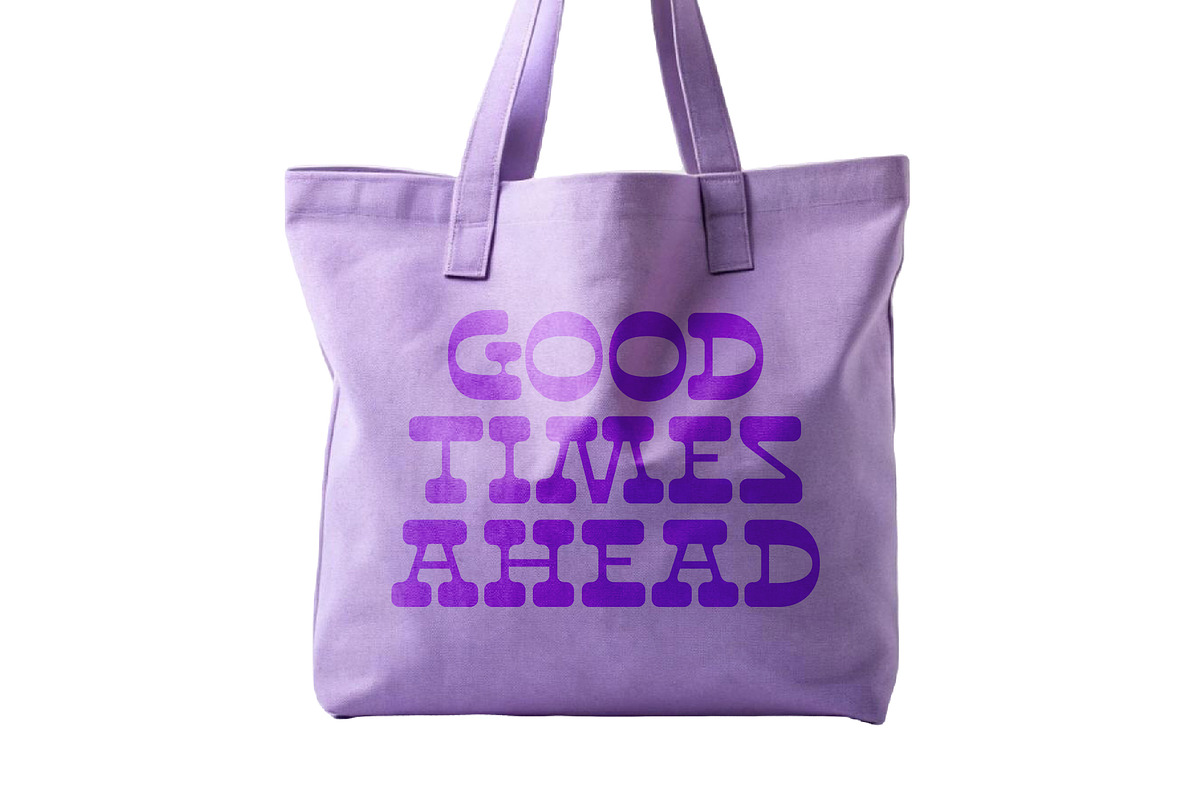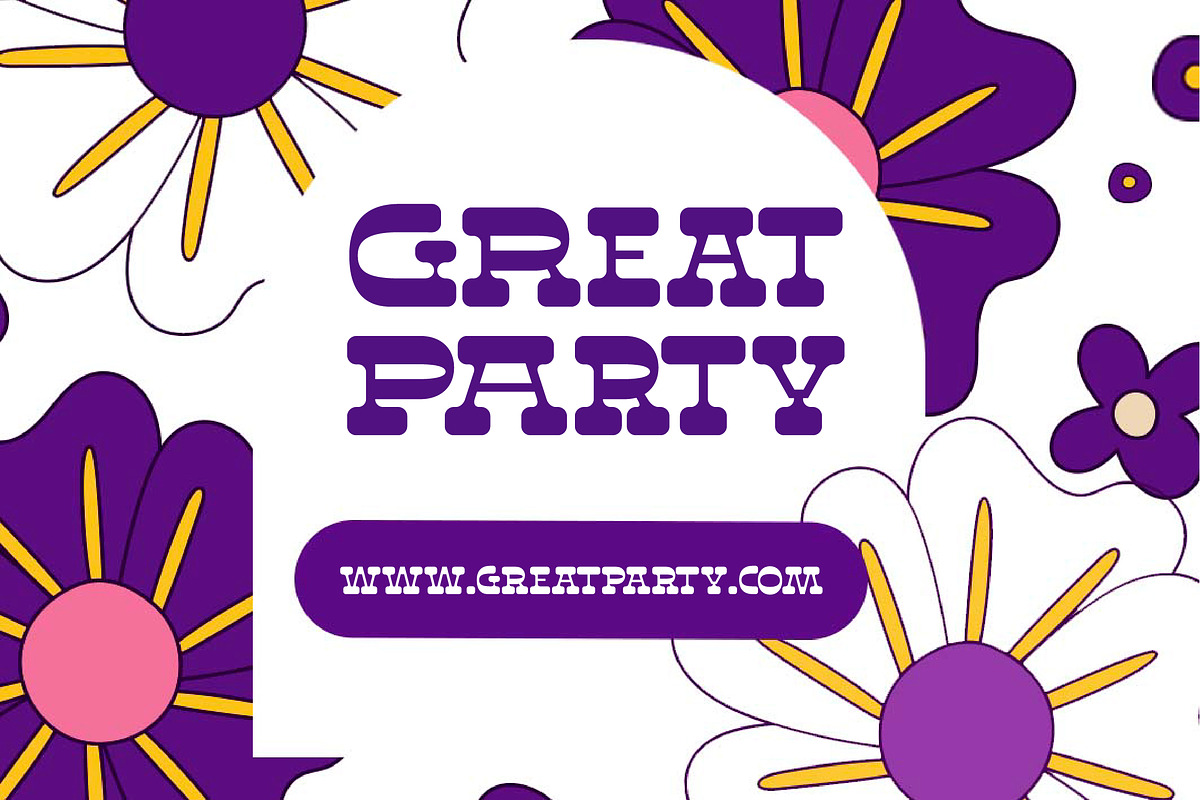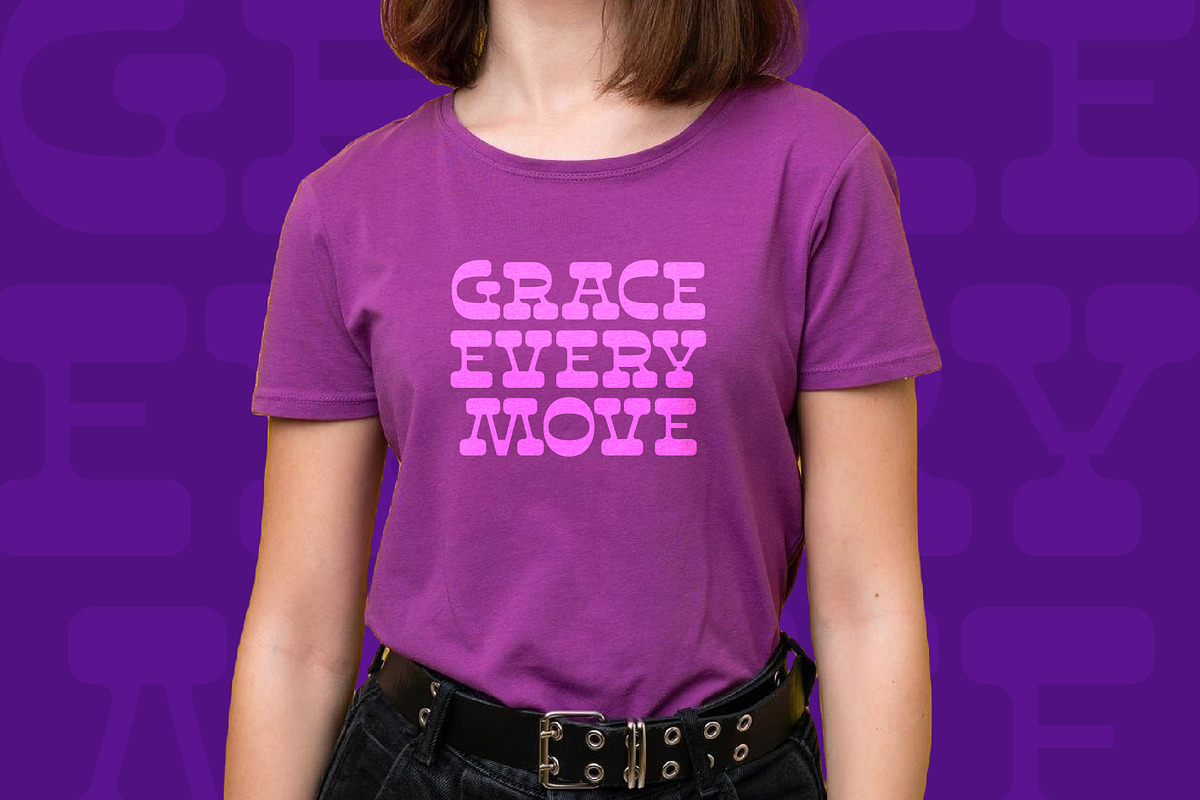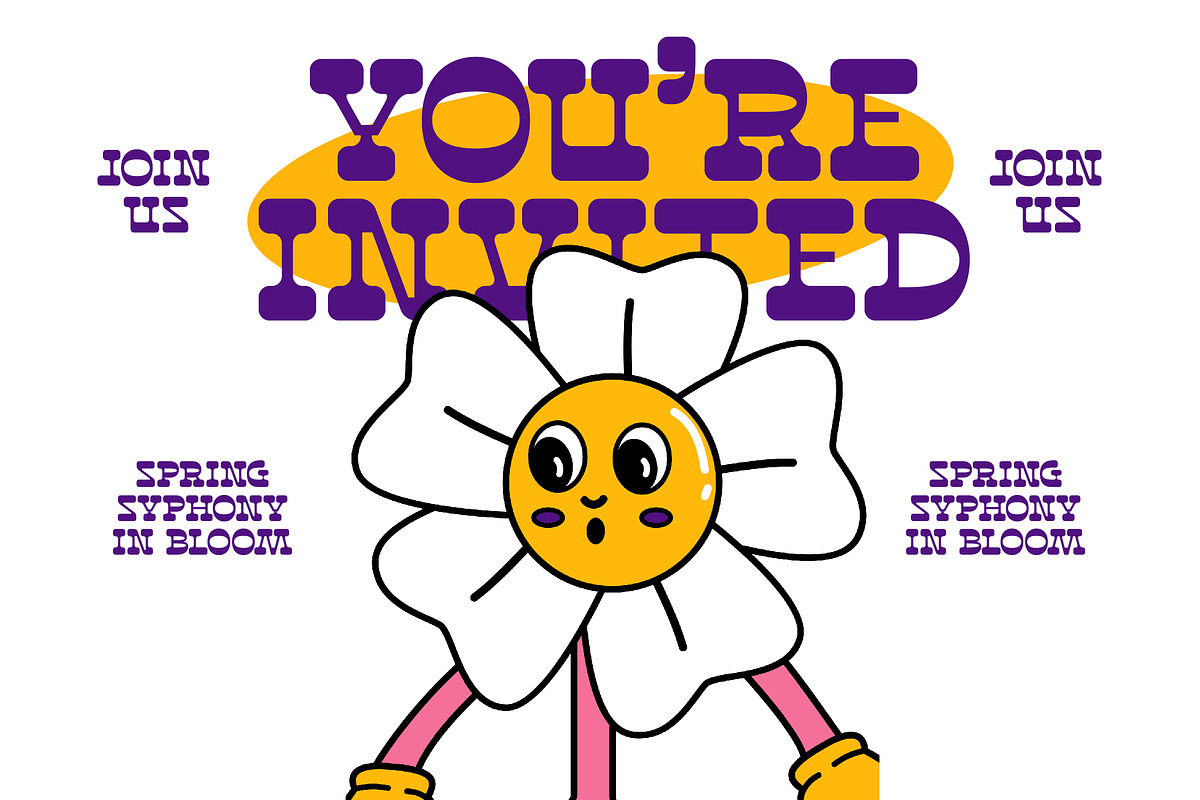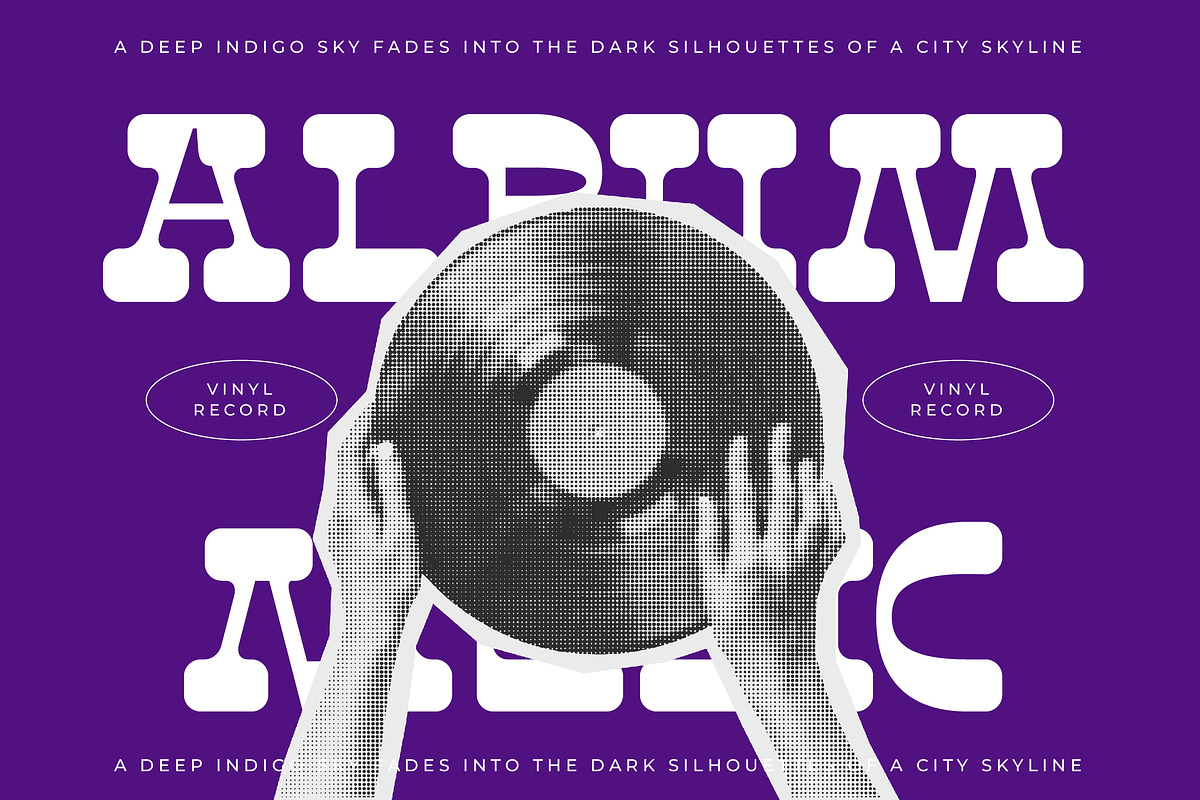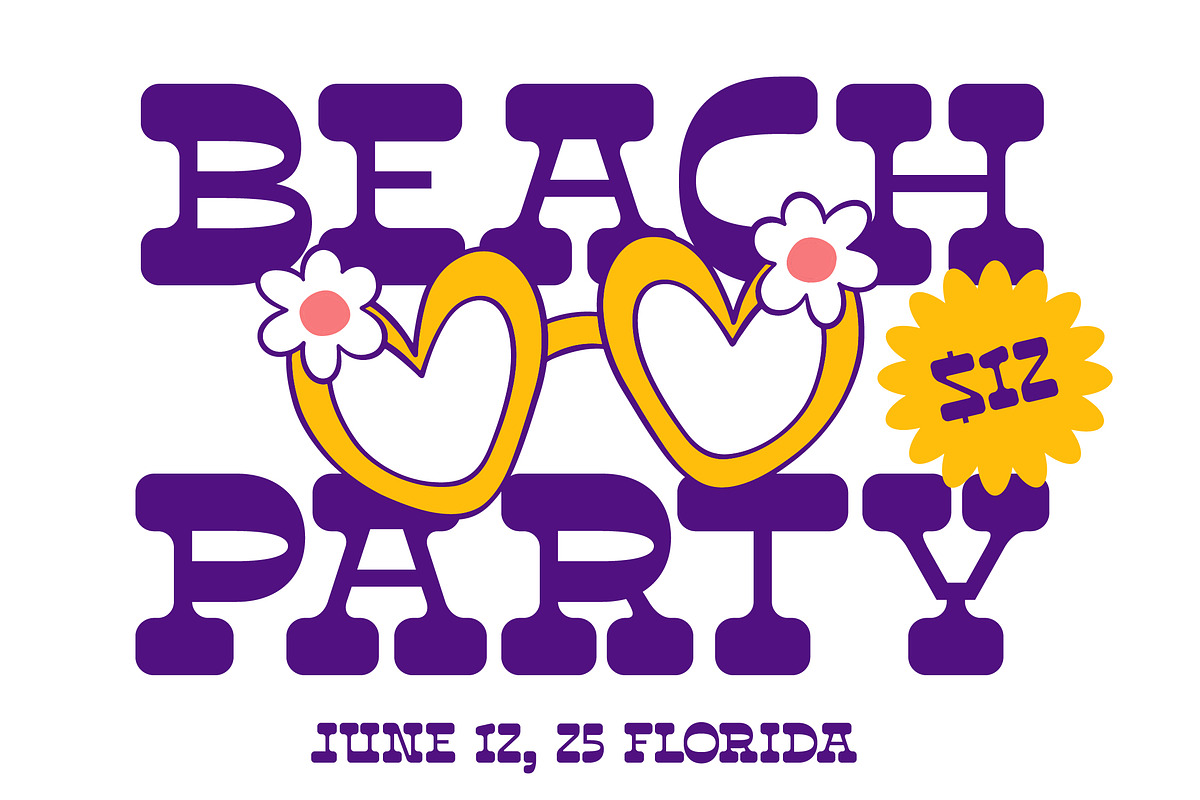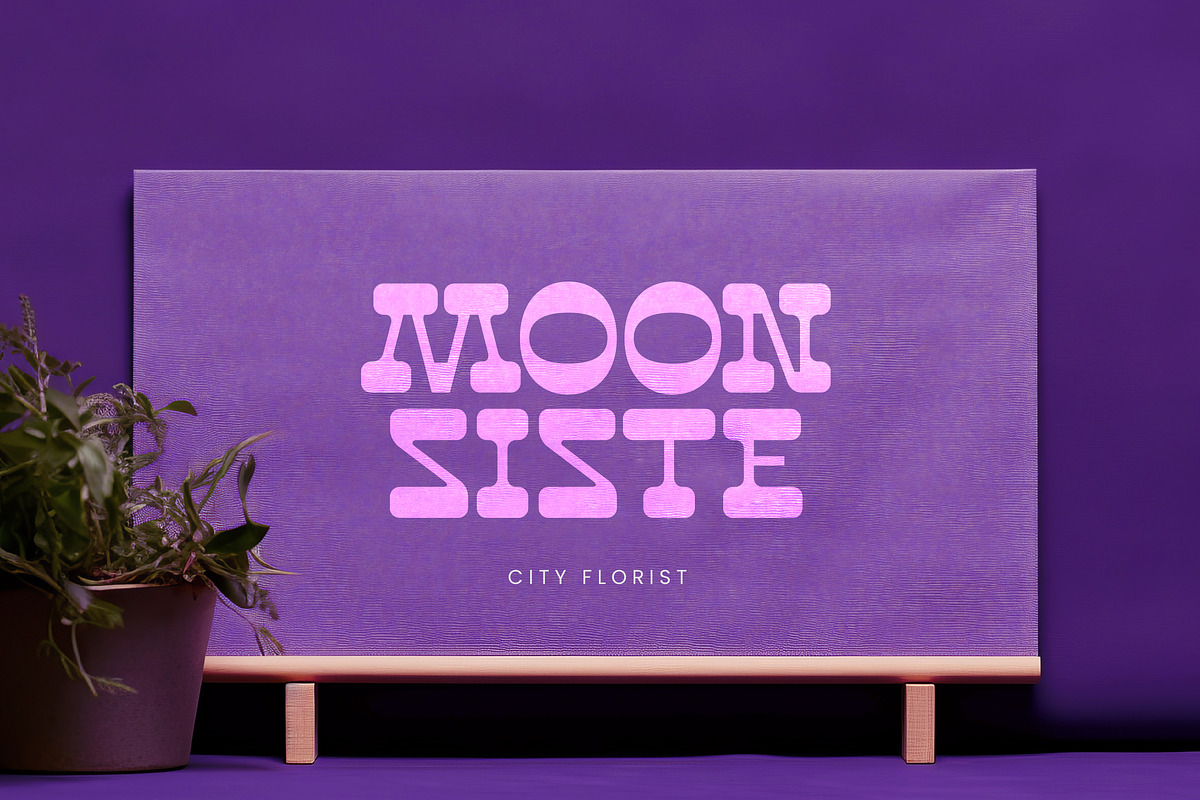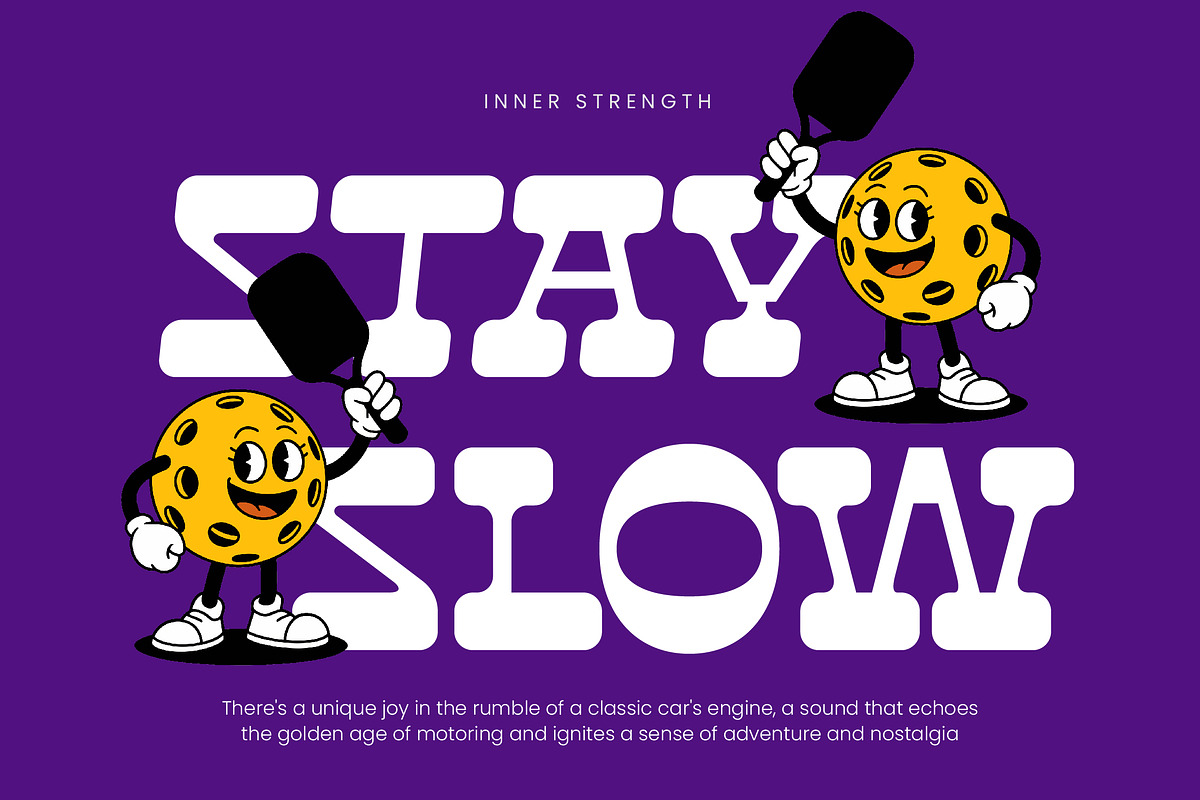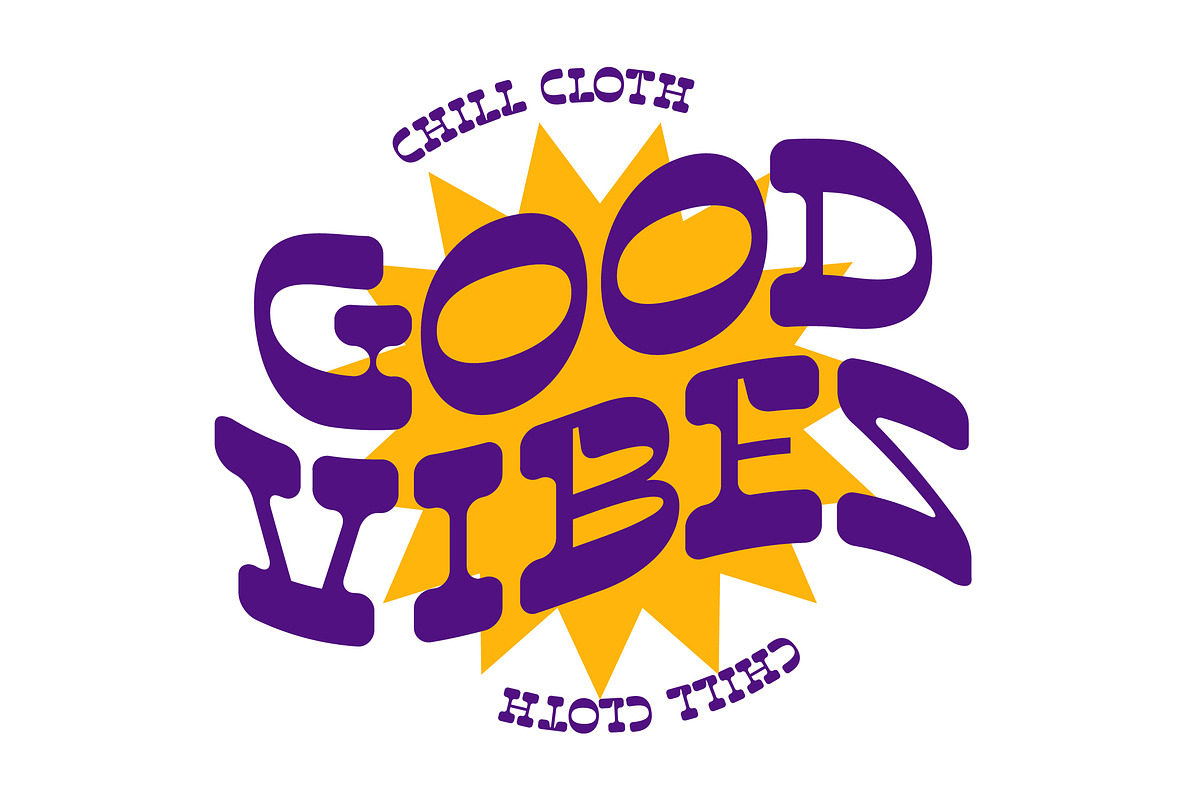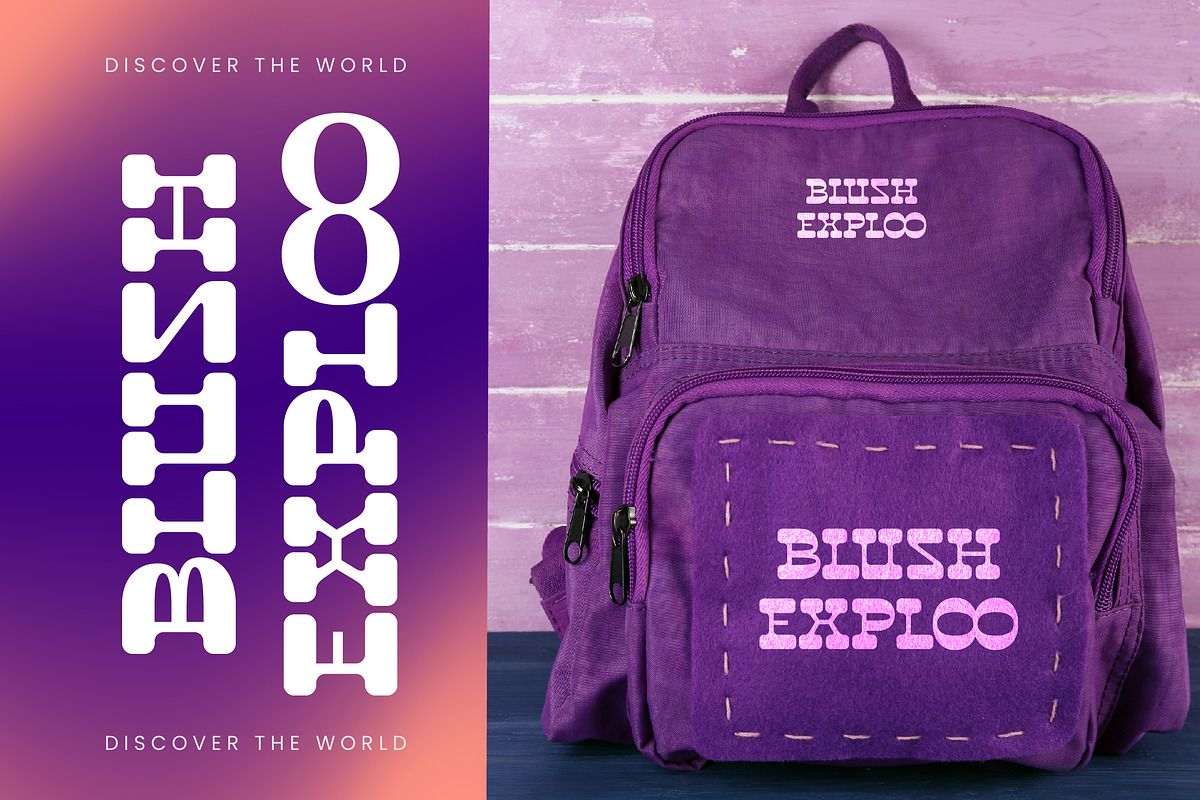
Disco Groov Retro Playful Serif
Get ready to bring a burst of nostalgic energy to your creative projects with the unmistakably vibrant Disco Groov. This font captures the essence of retro fun while maintaining a clean, modern edge that pops off any canvas.
Inspired by the electric atmosphere of 1970s dance floors and the quirky charm of vintage cartoon mascots, this typeface is a celebration of movement and joy. It draws from the golden era of vinyl records and roadside diner signage, blending thick, rhythmic strokes with a sense of carefree whimsy.
This modern serif display is designed for those who want their message to be felt as much as it is read. With its heavy weight and rounded corners, it delivers a luxury typography feel that doesn't take itself too seriously, ensuring a high branding impact while functioning as a versatile high-contrast serif for any editorial font needs.
As the modern serif trend continues to dominate the creative landscape, designers are looking for character-driven typography that breaks away from the minimalist mold. Disco Groov fits perfectly into the rise of editorial display fonts that prioritize personality and heritage aesthetics over flat design.
This typeface is the perfect choice for bold logo design and vibrant branding identities that need to stand out. It excels in packaging for snacks or apparel, creates striking editorial headers, and adds a unique twist to fashion lookbooks or even a retro-themed wedding invitation suite.
The font package is fully loaded with professional features including unique ligatures and creative alternates that allow for custom-tailored layouts. It also offers comprehensive multilingual support with a wide range of international characters, ensuring your message reaches a global audience.